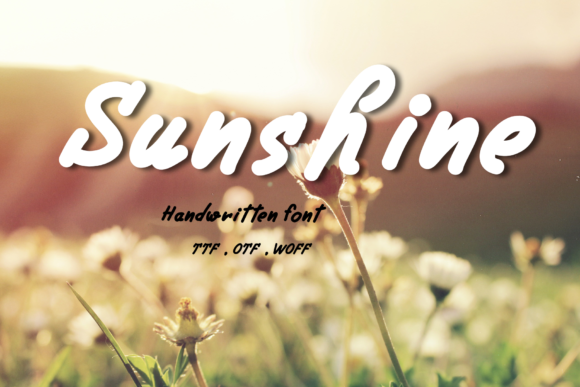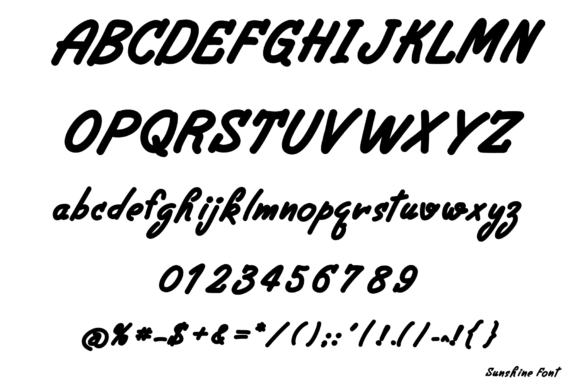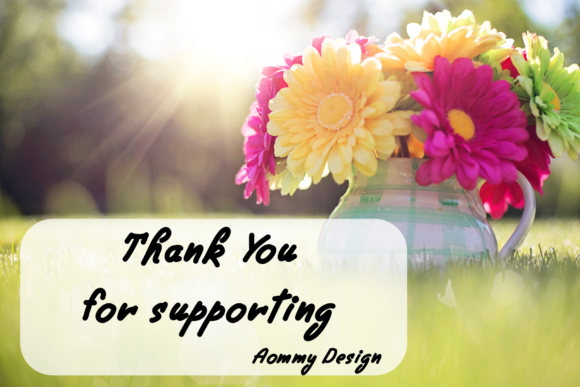
About Sunshine Font
Sunshine is a font that exudes loveliness and thickness in its charming handwritten style. Crafted to give your headlines and logotype projects a stylish touch, this font reads as strong, confident, and dynamic, adding a ton of nostalgic character to your designs.
The lovely and thick lettered handwritten style of Sunshine brings a sense of elegance and confidence to your designs. Each letter carries the bold and artistic touch of handwritten script, making your headlines and logotypes stand out with a touch of genuine character and charm.
With Sunshine as your creative tool, you have the freedom to explore various design ideas. Whether you’re working on headlines that require a strong and stylish vibe, creating logotypes with a touch of elegance and nostalgia, or adding a dynamic element to your designs, Sunshine adapts effortlessly to bring a sense of versatility and personality to your work.
Embrace the loveliness and thickness of Sunshine and witness how it transforms your headlines and logotype projects into stylish works of art. Its strong and confident nature adds a touch of authenticity, making your designs truly captivating and memorable.
Discover the joy of creating with Sunshine as your trusted companion. Let its handwritten appearance be the key to unlocking your creativity and infusing your work with a sense of stylish elegance and character.
Whether you’re designing for personal projects or professional endeavors, Sunshine is the font that adds that extra touch of flair and nostalgia to your creations. Embrace the lovely and thick charm of Sunshine and notice how it enhances the appeal and impact of your designs, making them truly special and unforgettable.
Let Sunshine be the font that sparks your inspiration and brings a touch of style and confidence to your headlines and logotype projects. Experience the magic of Sunshine and witness how it elevates your creative projects, making them truly stylish and filled with a sense of genuine character and nostalgia.